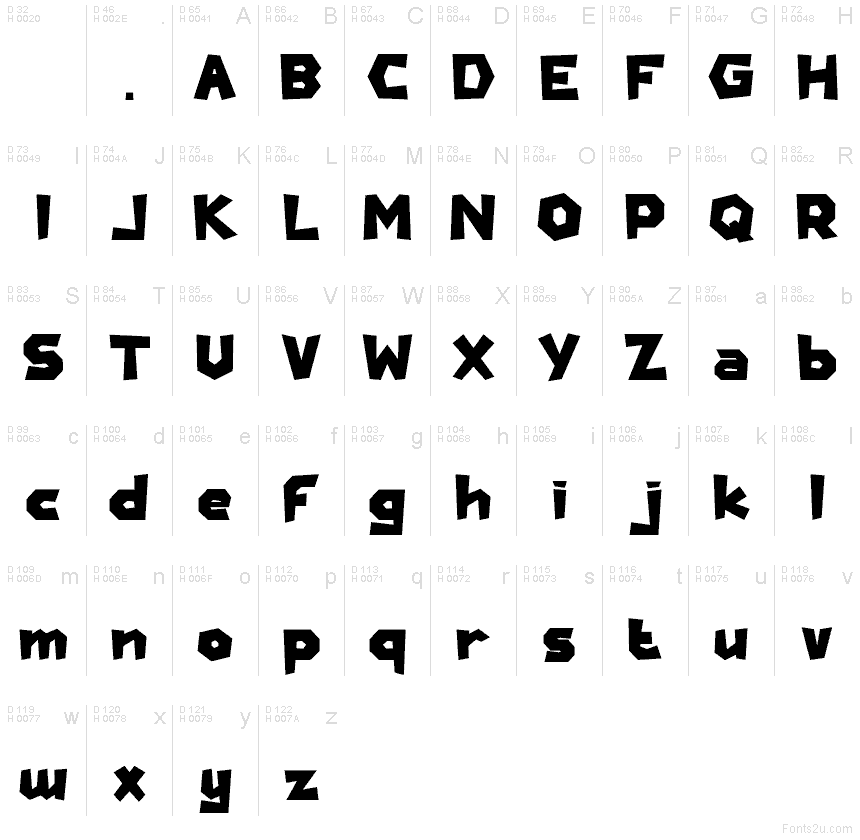
MAGIC SPACE Regular
Magic space font by Achmad Yani of Flawless And Co. is a free cartoon display font. Its chunky, cut‑paper shapes look like meteor shards—angular, playful, and a little off‑kilter—giving headlines a lively wobble without losing weight. The letters pack together with a bold, ink‑blot feel, so even a few words land with comic‑book energy.
Using Magic space, titles jump off posters, kids’ science flyers, game logos, comic covers, toy packaging, and YouTube thumbnails. The irregular rhythm keeps things spirited while the sturdy forms stay readable at large sizes; give it a touch of extra tracking for air. Pair this free font with a simple rounded sans for body copy to balance its jagged charm.